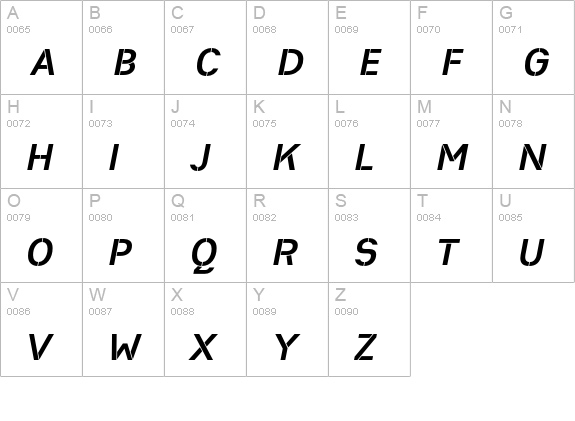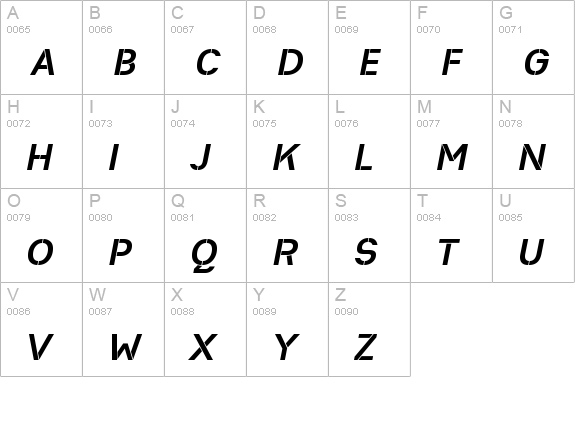
Heimat Stencil Bold Italic Font Details
Heimat Stencil Bold Italic is a strong, high-contrast, italic variant in the Heimat typeface family \xE2\x80\x94 well suited to headlines, attention-grabbing titles, and strong calls-to-action.
Heimat Stencil Bold Italic font is a striking and modern typeface that exudes a sense of strength and sophistication. Its bold and italic design makes it perfect for adding emphasis and style to any project. The stencil effect adds a unique touch, making it stand out from other fonts. What sets Heimat Stencil Bold Italic font apart is that it is not only visually stunning but also free to use. Whether you're working on a branding project, poster design, or any other creative endeavor, this font will elevate your work to the next level. For those looking to enhance their designs with this beautiful typeface, Heimat Stencil Bold Italic font is freely available for download at FontsMarket.com. Don't miss out on the opportunity to add this versatile and eye-catching font to your collection today.